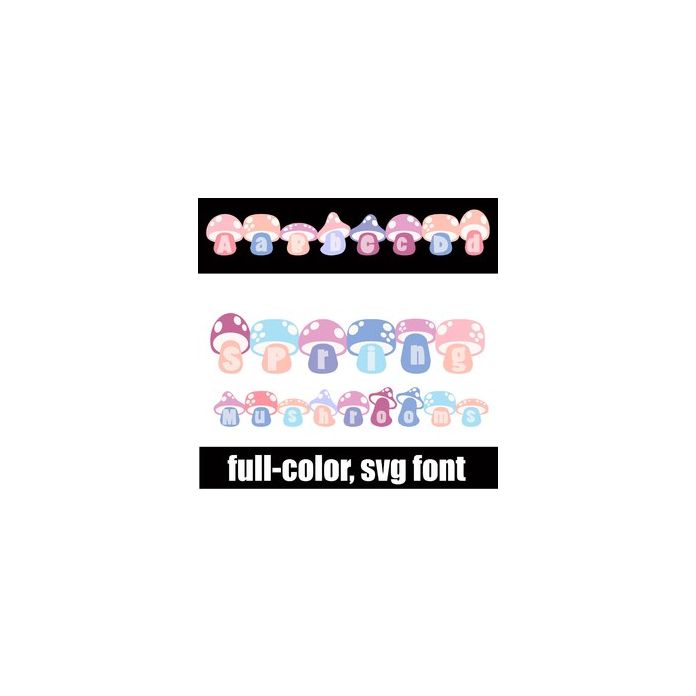
This full-color font features mushrooms with letters in a spring-color palette. There is an alt version you can access through your system's character map that contains additional colors of all the letters.